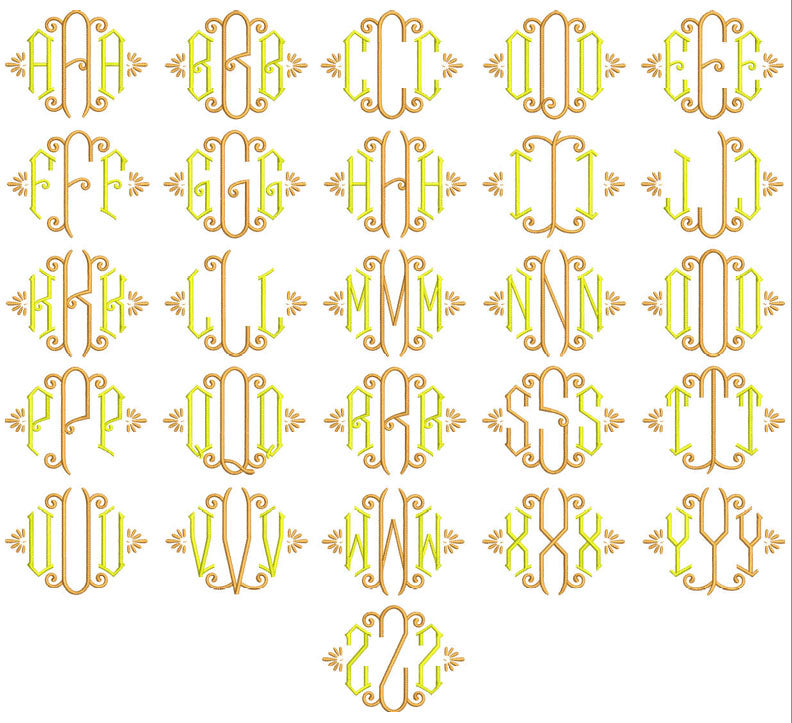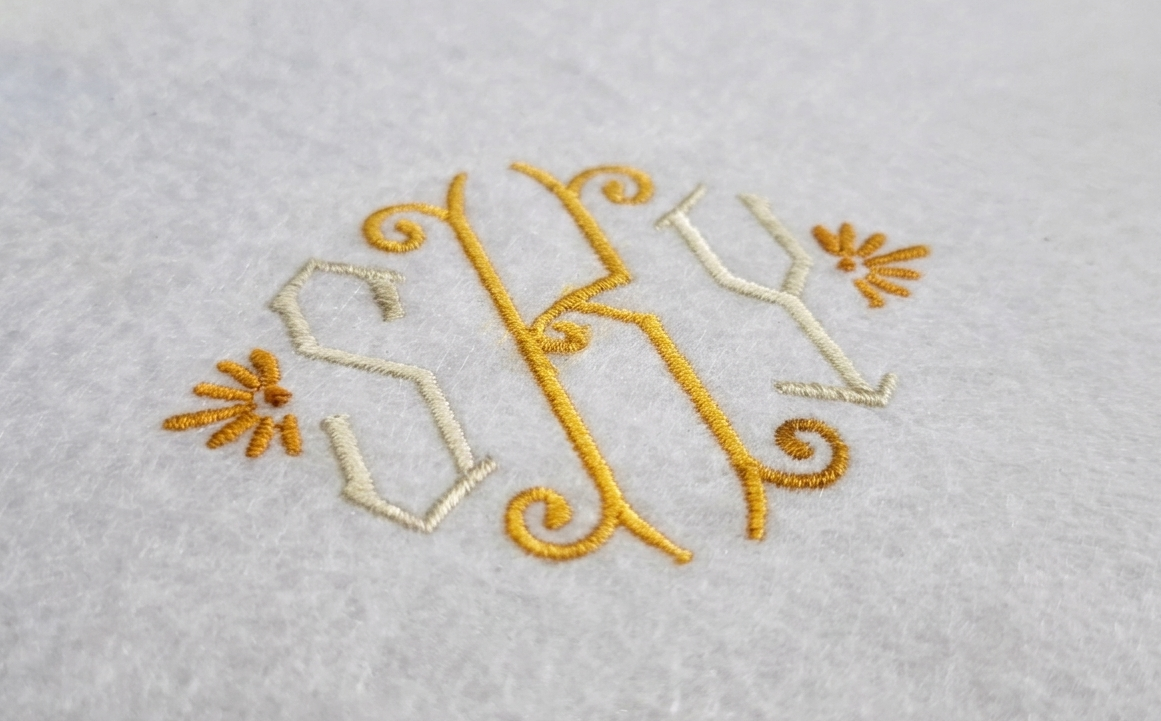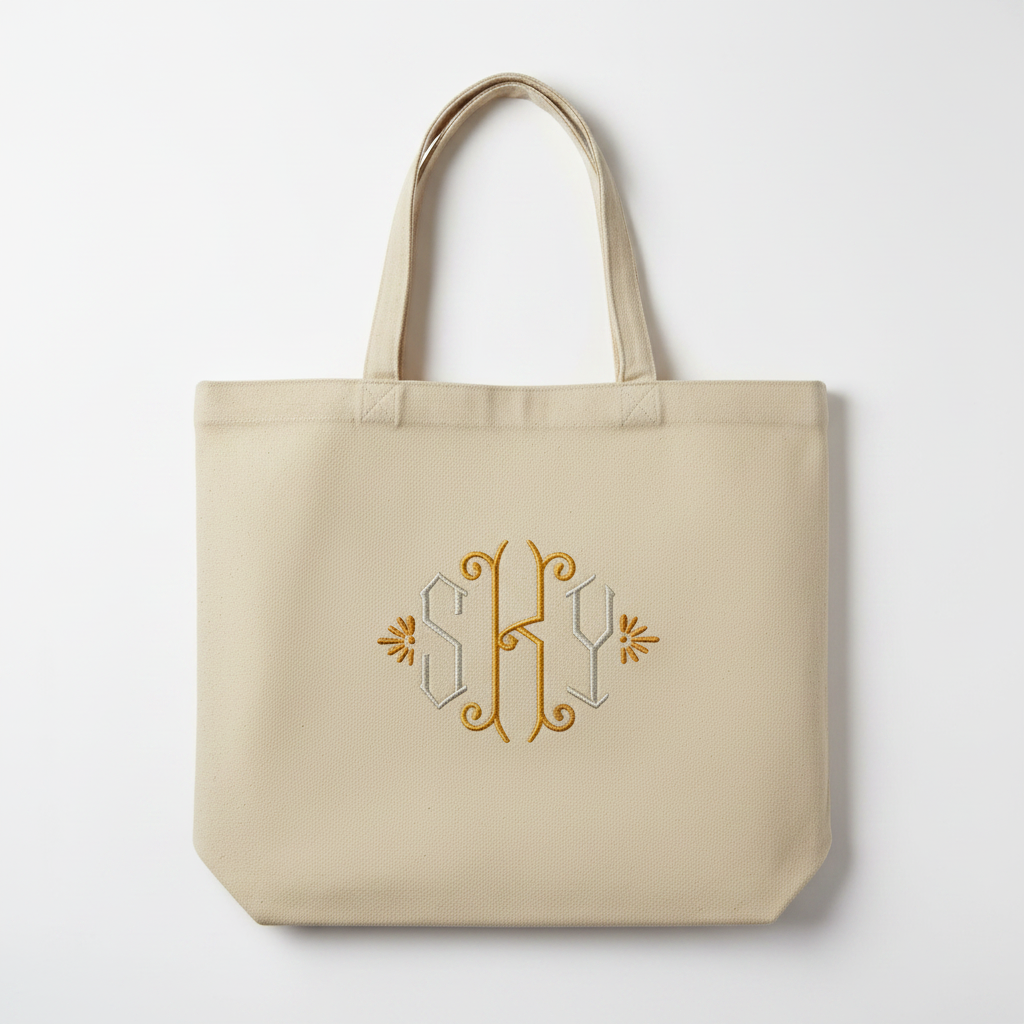
Helios Monogram Embroidery Font – 3 Sizes | Instant Download
Add timeless elegance to any project with the Helios Monogram Embroidery Font — a beautifully ornate interlocking monogram design with delicate floral flourishes.
- ✦ Full alphabet A–Z